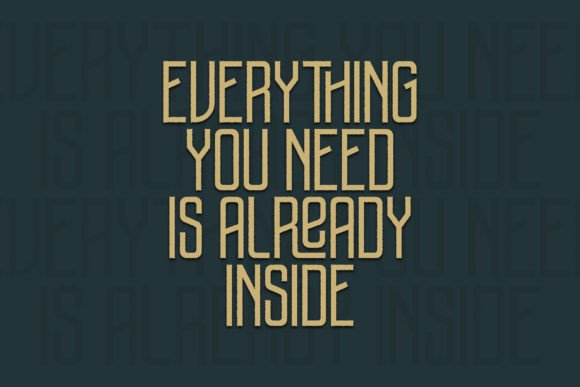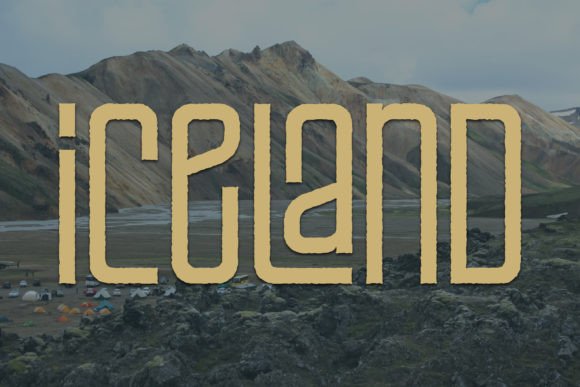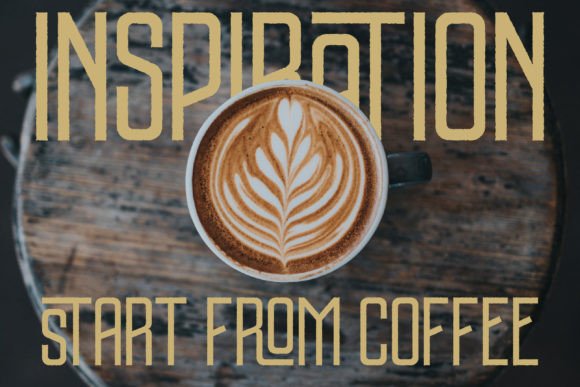
Introduction to Polaroid Font
Polaroid is a modern and classic sans serif font with a unique style and modern look.
This typeface is perfect for an elegant & luxury logo, book or movie title design, fashion brand, magazine, clothes, lettering, quotes, and so much more .